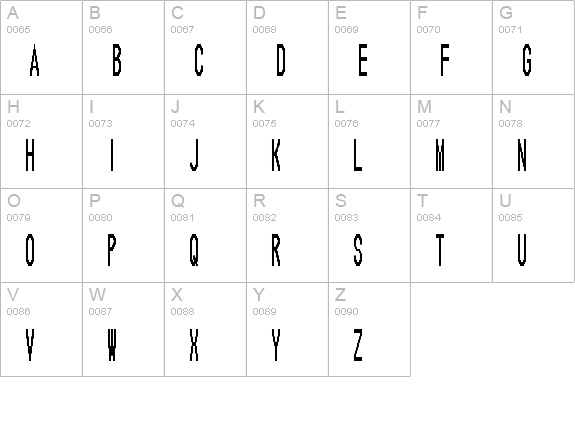
CondenBitmap Font Details
CondenBitmap is a visually striking font that is guaranteed to make a bold statement in any design project. With its condensed and bitmap-like appearance, this font exudes a sense of modernity and innovation. Its sleek and angular letterforms create a unique and eye-catching aesthetic that is perfect for headlines, logos, posters, and more. But what truly sets CondenBitmap apart is the fact that it is free. That's right, this remarkable font can be downloaded and used freely at FontsMarket.com. This means that designers and creatives of all kinds can add this powerful tool to their arsenal without breaking the bank. Whether you're a professional designer or a hobbyist, CondenBitmap offers you the opportunity to elevate your creations without sacrificing your budget. With its extensive character set, CondenBitmap allows for versatility and customization. From uppercase letters to lowercase letters, numerals, punctuation marks, and even special characters, this font has everything you need to bring your vision to life. Its clean and precise outlines ensure legibility even at small sizes, making it suitable for various applications. Designed with meticulous attention to detail, CondenBitmap embraces both form and function. Its high-quality design ensures smooth curves and sharp angles, resulting in a flawless display on both digital and print platforms. Whether you're designing a website, creating a promotional banner, or printing a brochure, this font will leave a lasting impression on your audience. So don't miss out on the opportunity to enhance your designs with CondenBitmap. Download it for free today at FontsMarket.com and unlock a world of creative possibilities. With this font in your toolkit, you'll be able to captivate your viewers and make a lasting impact with your designs.